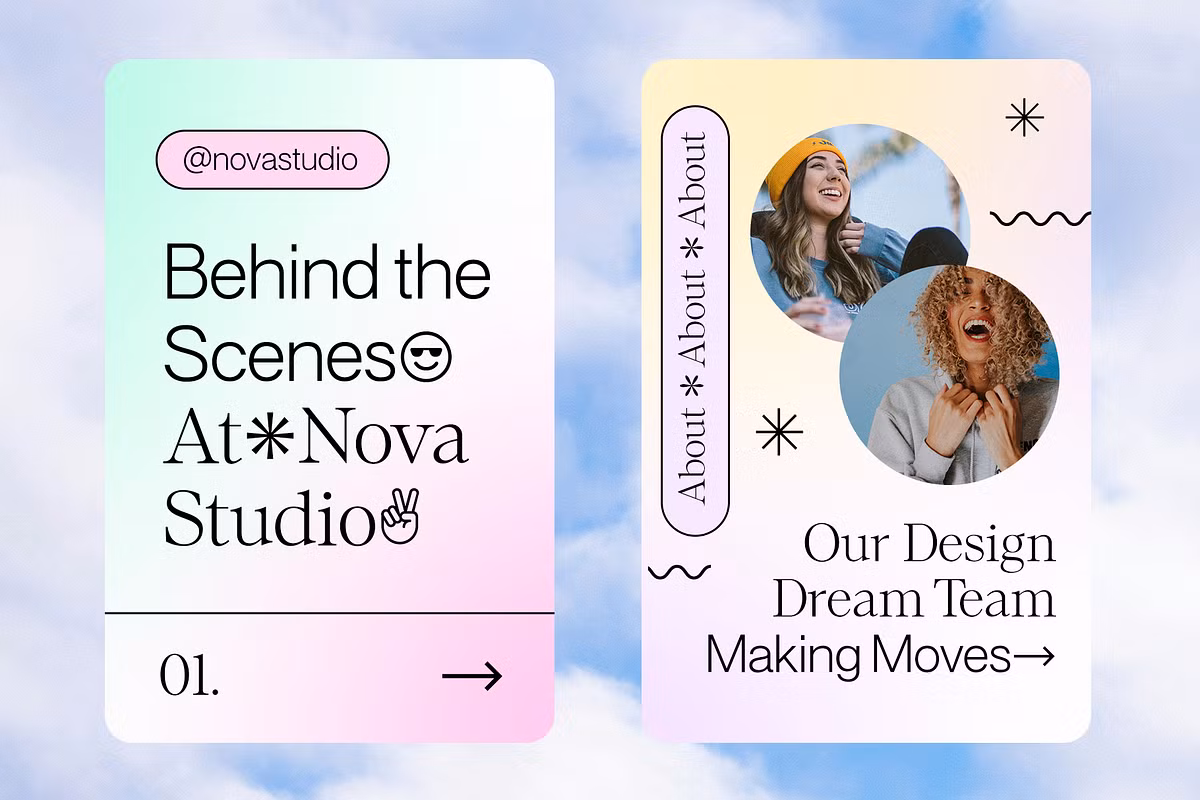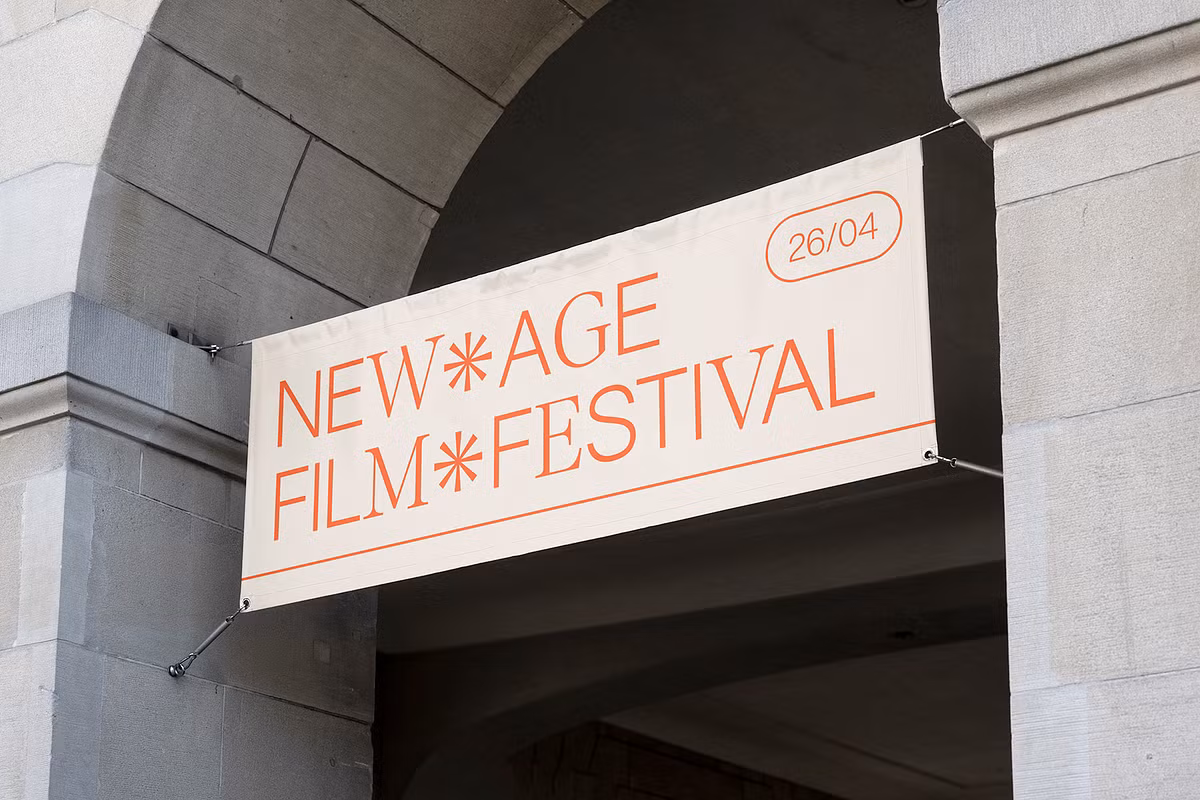
Neo Forma Font Duo: Modern Sans & Serif Typography Package
Neo Forma Font Duo
Neo Forma Font Duo: Modern Sans & Serif Typography Package
Introducing the Neo Forma Font Duo, a meticulously crafted typography package that combines the elegance of a modern Sans serif font with the stylish flair of a Serif typeface. This unique duo is designed to provide you with versatile options for creating stunning visual compositions, whether for branding, websites, print materials, or social media projects.
Example of Neo Forma Font Duo showcasing Sans and Serif styles
Visual representation of the Neo Forma Font Duo.
The Neo Forma Font Duo has a really modern look that’s both simple and fancy at the same time. The sans serif font is super clean and has geometric shapes that make it look very current. On the other hand, the serif font is more classic, but still really stylish, with serifs that are refined and add a lot of personality.
When you use these two fonts together, you can make layouts that are really versatile and can work for lots of different design projects. This font duo is great because it can help you create a balance between modern and traditional looks, which can be really useful for designers who want to try out different styles. Overall, the Neo Forma Font Duo is a great choice for anyone who wants to add some visual interest to their designs.
Complementary Aesthetics
The Neo Forma Font Duo really stands out because of how well the two fonts work together. They have the same weights and measurements, so they look great when you use them together. This makes it easy to mix the Sans and Serif styles to create headings, body text, and other things that catch your eye.
Typography layout using Neo Forma Font Duo
Example layout showcasing complementary aesthetics.
The people who designed the fonts thought carefully about how they would look together, so you can keep a consistent look in your projects. You can confidently use the fonts together, knowing they will look good. The result is a professional and polished look that will make your work stand out.
Character Sets and Language Support
The Neo Forma Font Duo is more than just good looks – it’s also really useful. It comes with a huge set of characters that work with lots of different languages. So, if you’re creating something in English, Spanish, French, German, or any other language it supports, you can be sure your text will look great and be easy for everyone to read.
This font duo is all about being inclusive and making sure your design can be enjoyed by people who speak different languages.
Diverse language options supported by Neo Forma Font Duo
Wide range of languages supported by the font duo.
The Neo Forma Font Duo has a lot of language support, which means it can be used for lots of different projects around the world. This makes it a great choice for designers who work on international projects and need a font that can handle many languages. It’s a good option for people who design things for different countries and cultures.
Use Cases for Neo Forma Font Duo
The Neo Forma Font Duo is incredibly versatile and can be utilized across various platforms and mediums. Here are some of the most common use cases:
Branding
In branding projects, the Neo Forma Font Duo allows for the creation of a distinct visual identity. The combination of the Sans and Serif fonts offers flexibility in logo design, business cards, and promotional materials, ensuring that your brand communicates professionalism and creativity.
Web Design
The Neo Forma Font Duo is a great tool for web designers who want to make their websites more engaging and easy to use. It has a clean and modern look that works well for menus and buttons that tell users what to do next. The other font, with its classic feel, is better suited for longer pieces of writing like blog posts and articles, making it easier for users to read and stay interested.
By using these two fonts together, designers can create a website that is both nice to look at and easy to navigate. This can help keep users engaged and make the website more effective overall.
Print Materials
When it comes to print materials, the Neo Forma Font Duo shines in brochures, flyers, and posters. The ability to pair the two fonts allows for visually appealing layouts that draw attention and convey messages effectively. The fonts’ clarity and character make them suitable for both large headlines and detailed text blocks.
To maximize the potential of the Neo Forma Font Duo, consider the following pairing suggestions:
The Neo Forma Font Duo is a great tool for designers who want to make their work look modern and stylish. It has a nice mix of Sans and Serif fonts that work well together, and it supports many languages, which makes it very useful.
You can use it for all sorts of projects, like creating a brand, designing a website, or making printed materials. The Neo Forma Font Duo is flexible and looks good, so it can help make your designs stand out. By using this font duo, you can give your work a fresh and contemporary feel that will grab people’s attention.